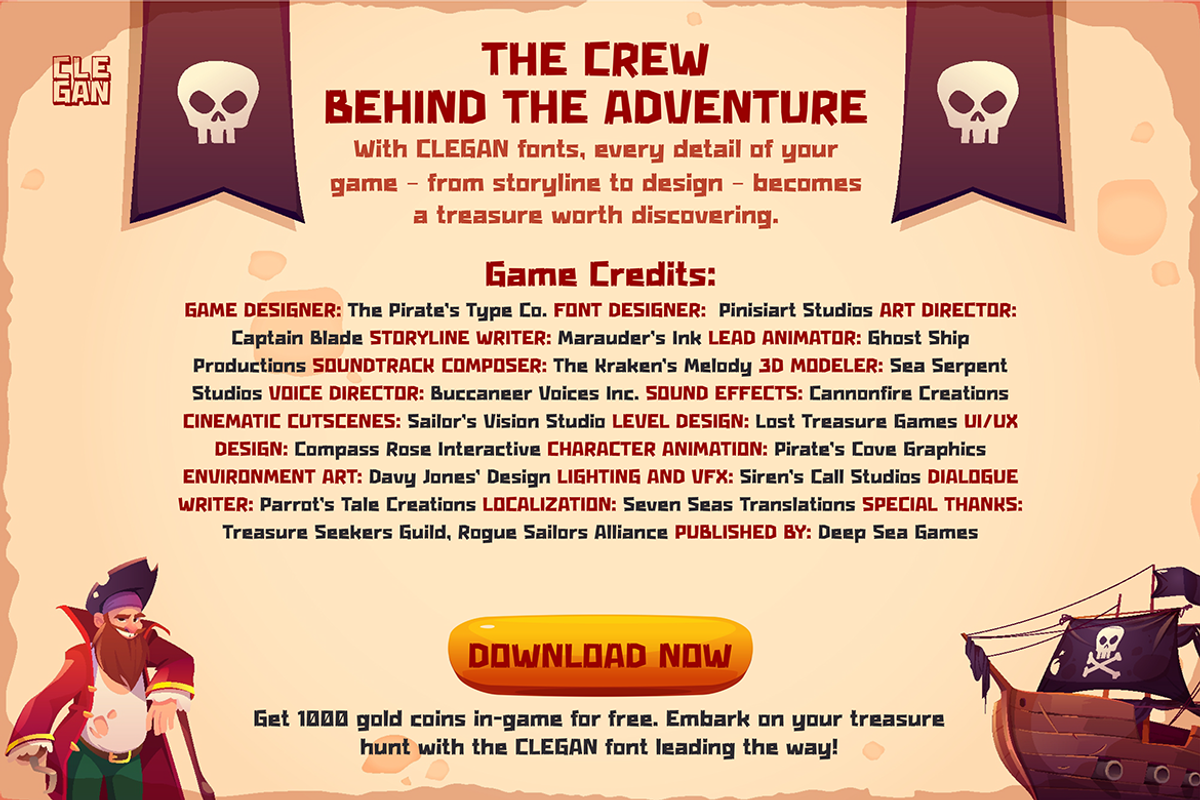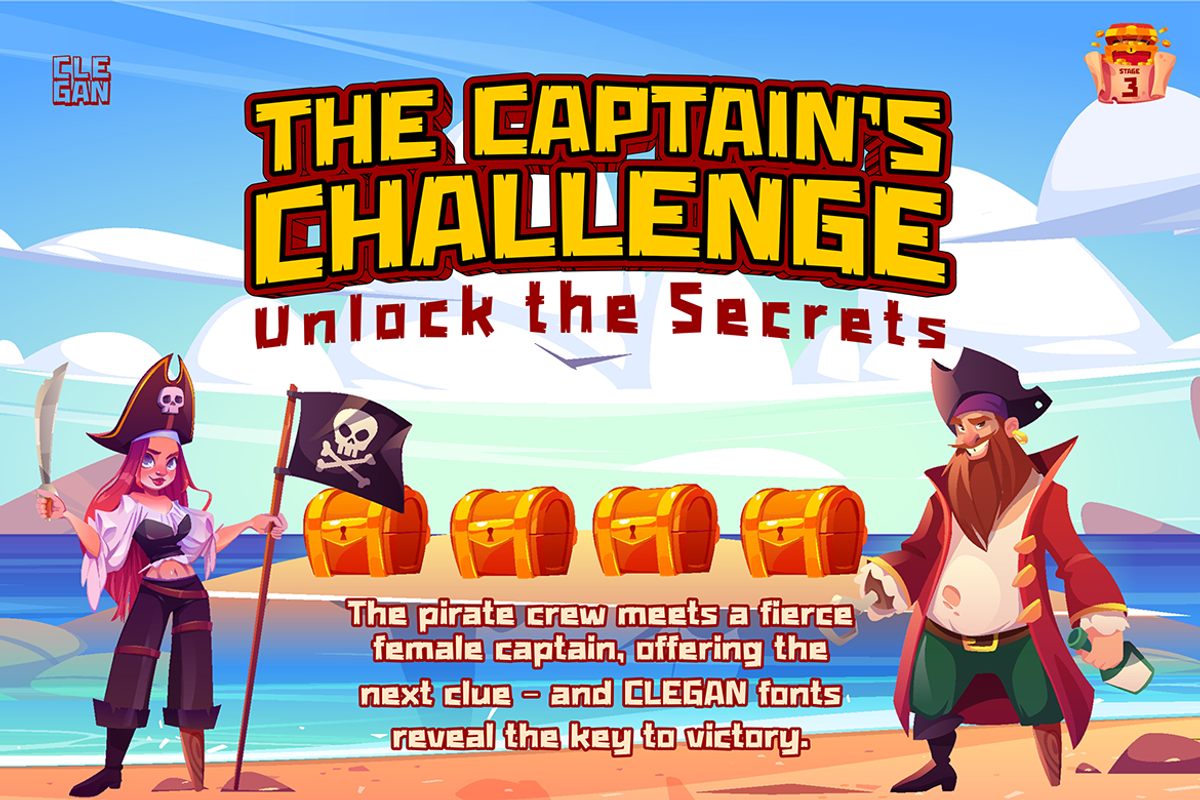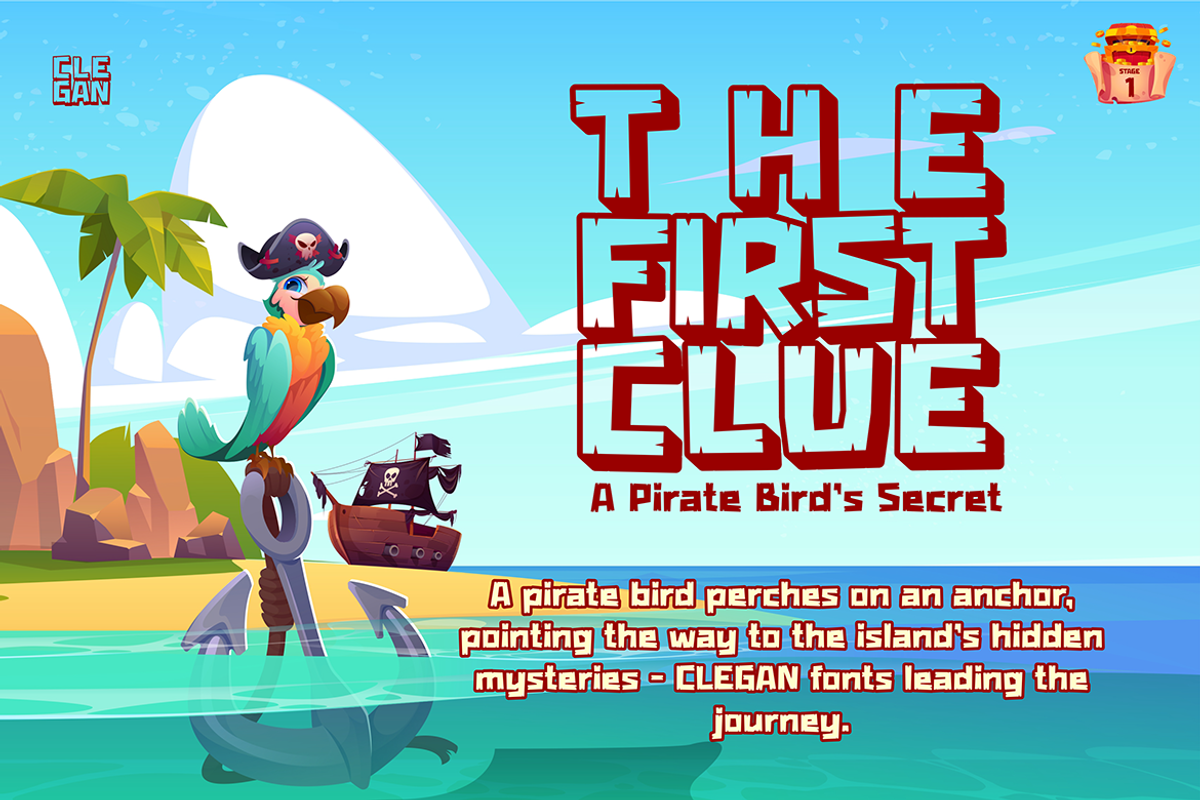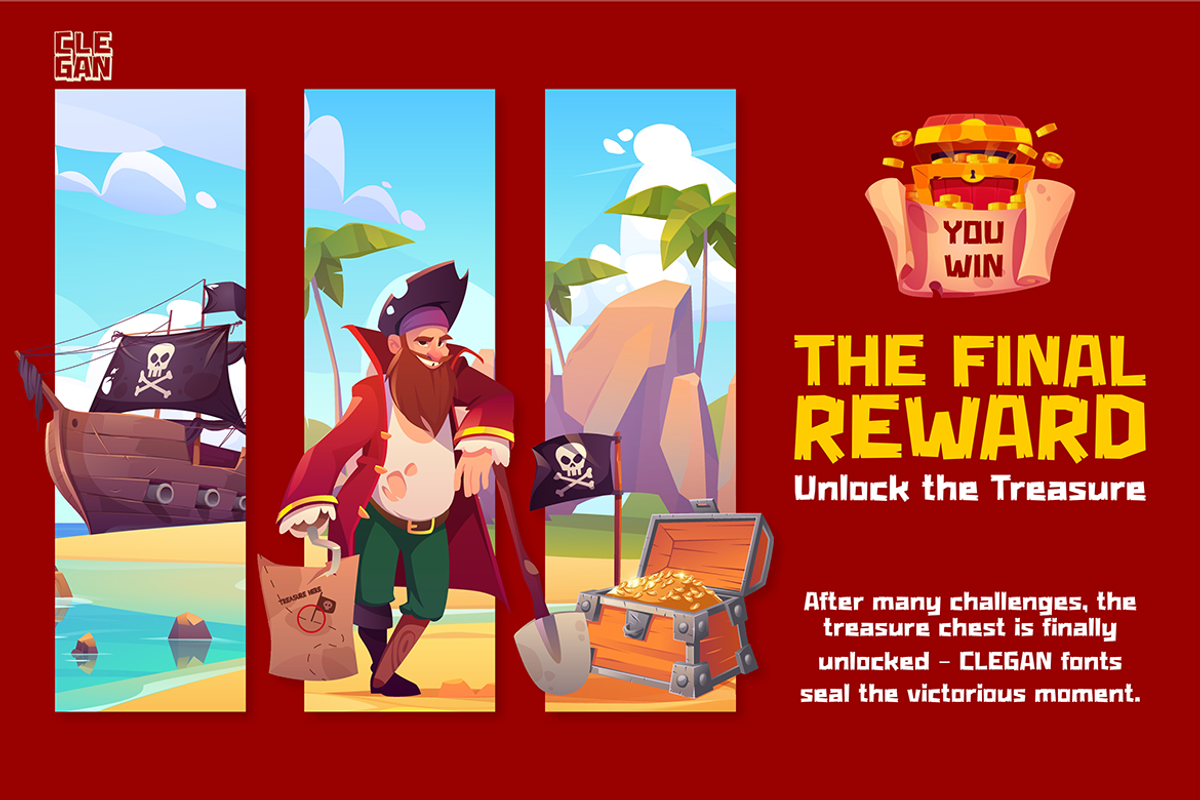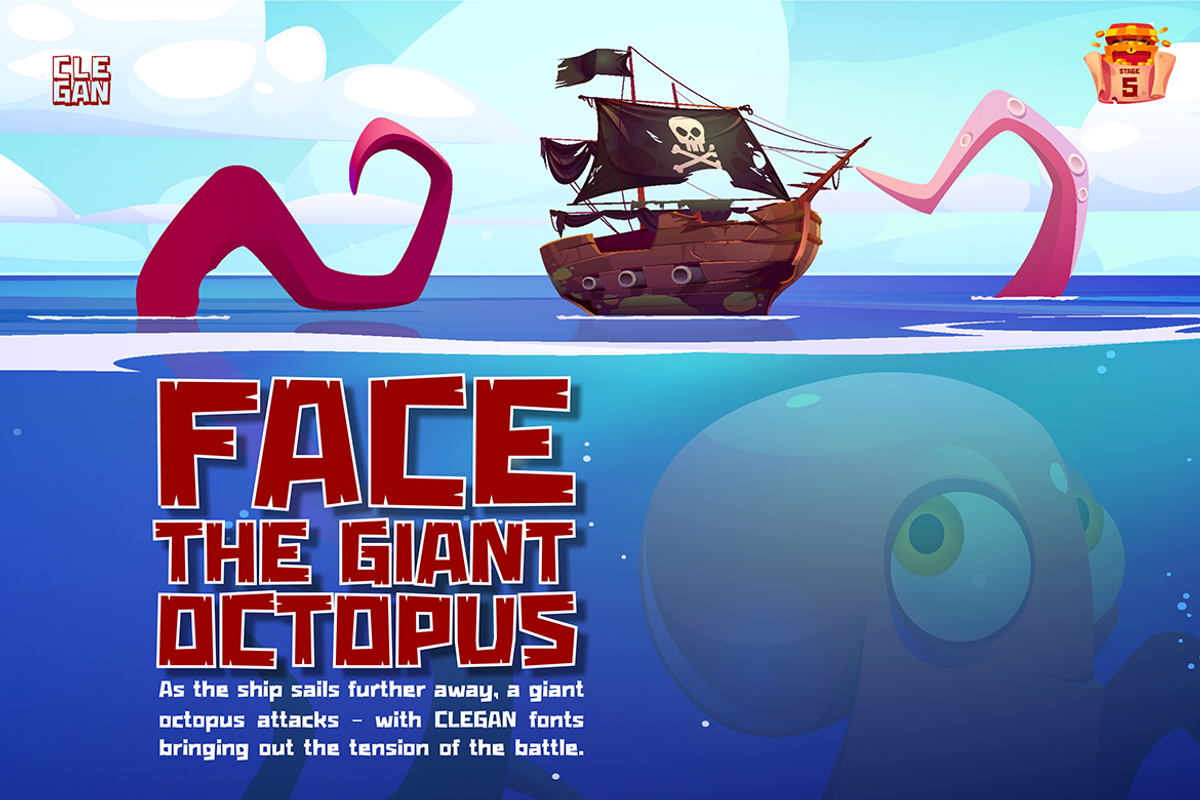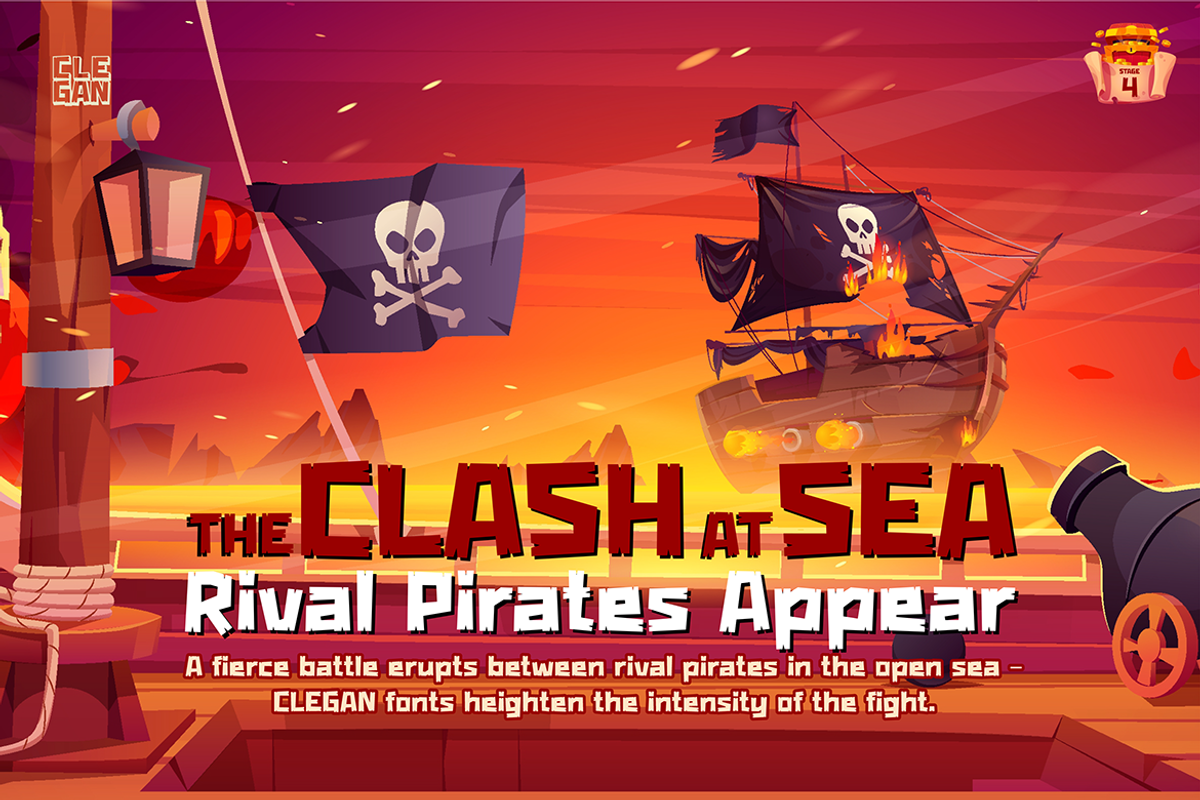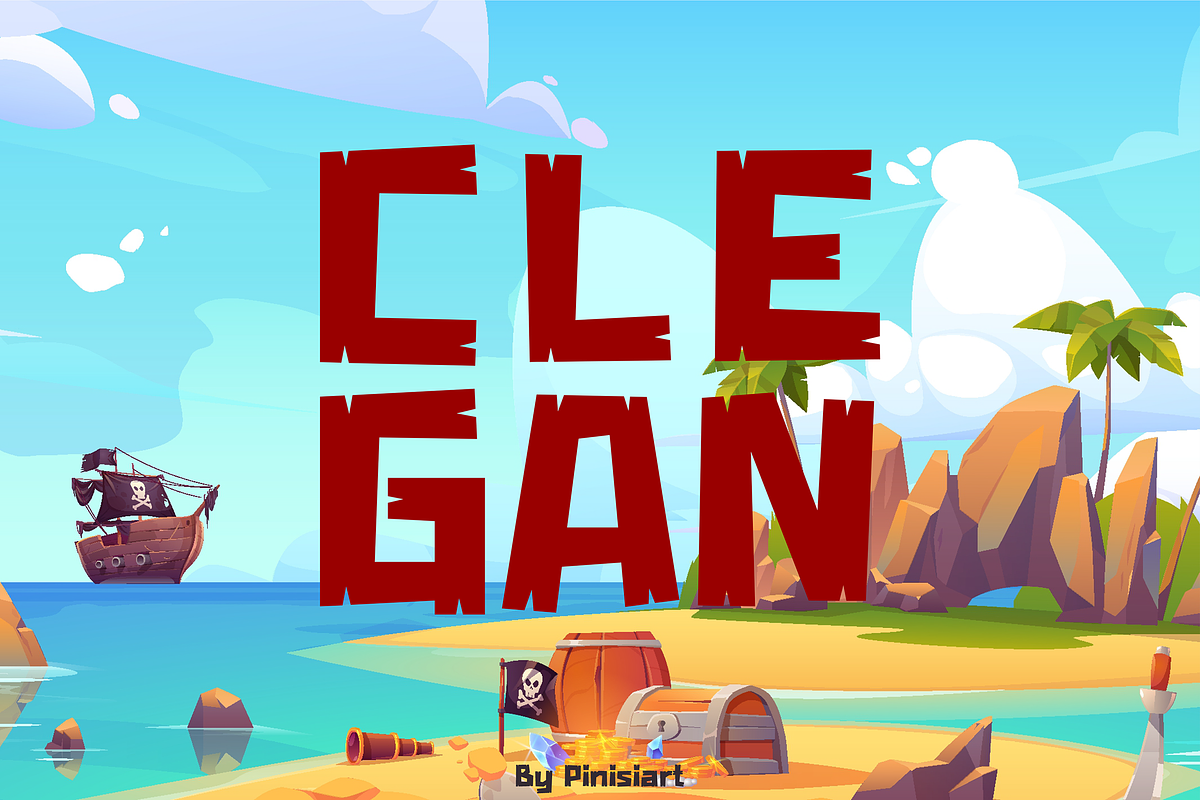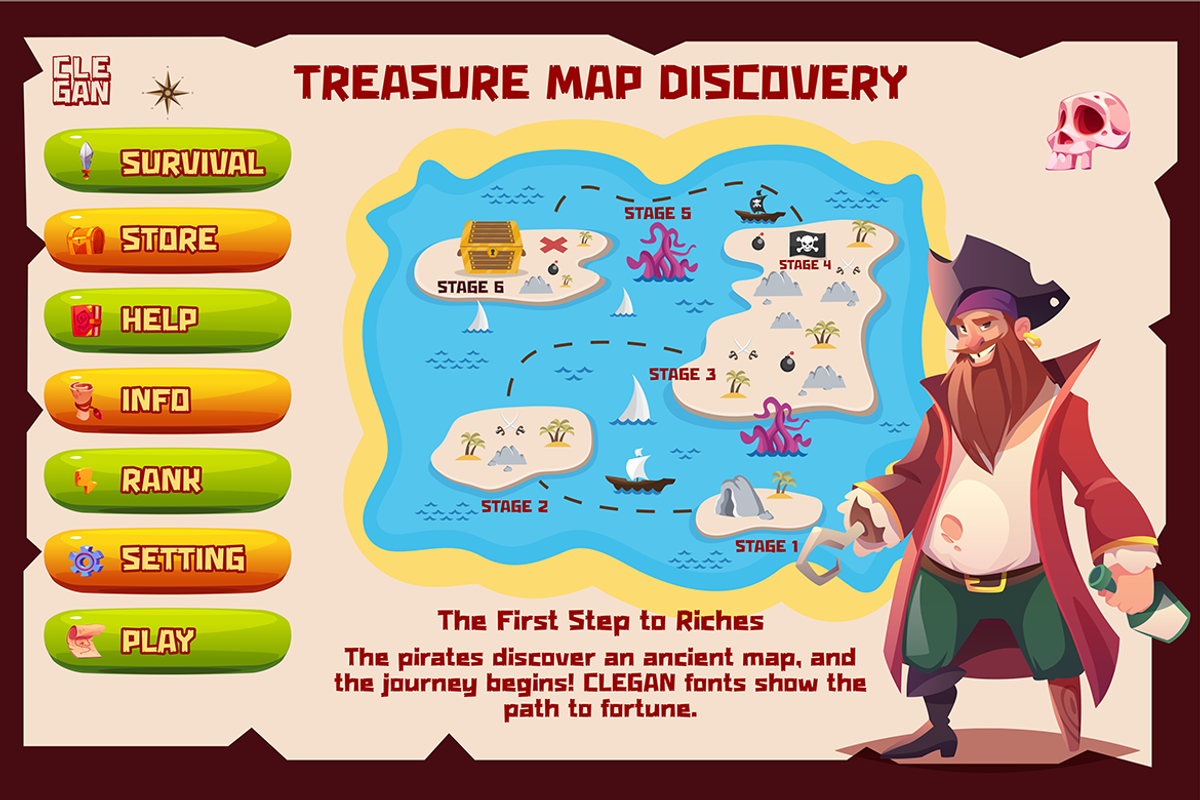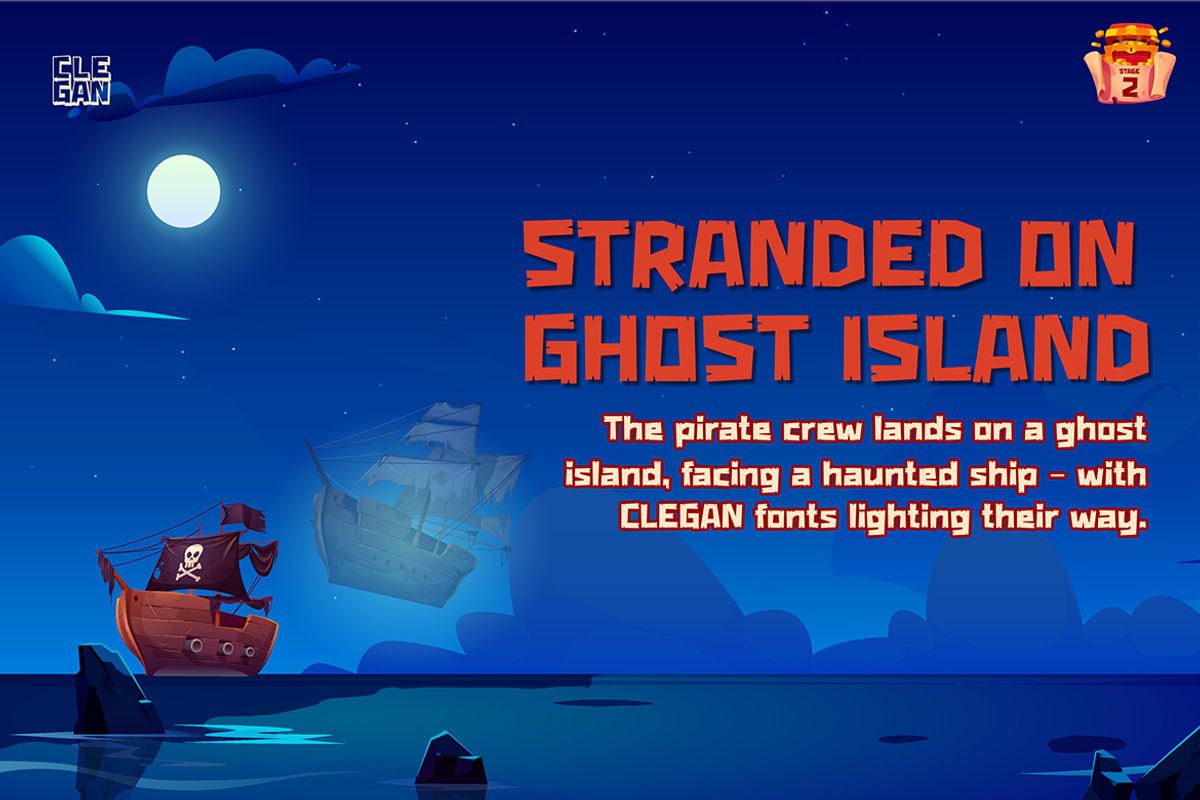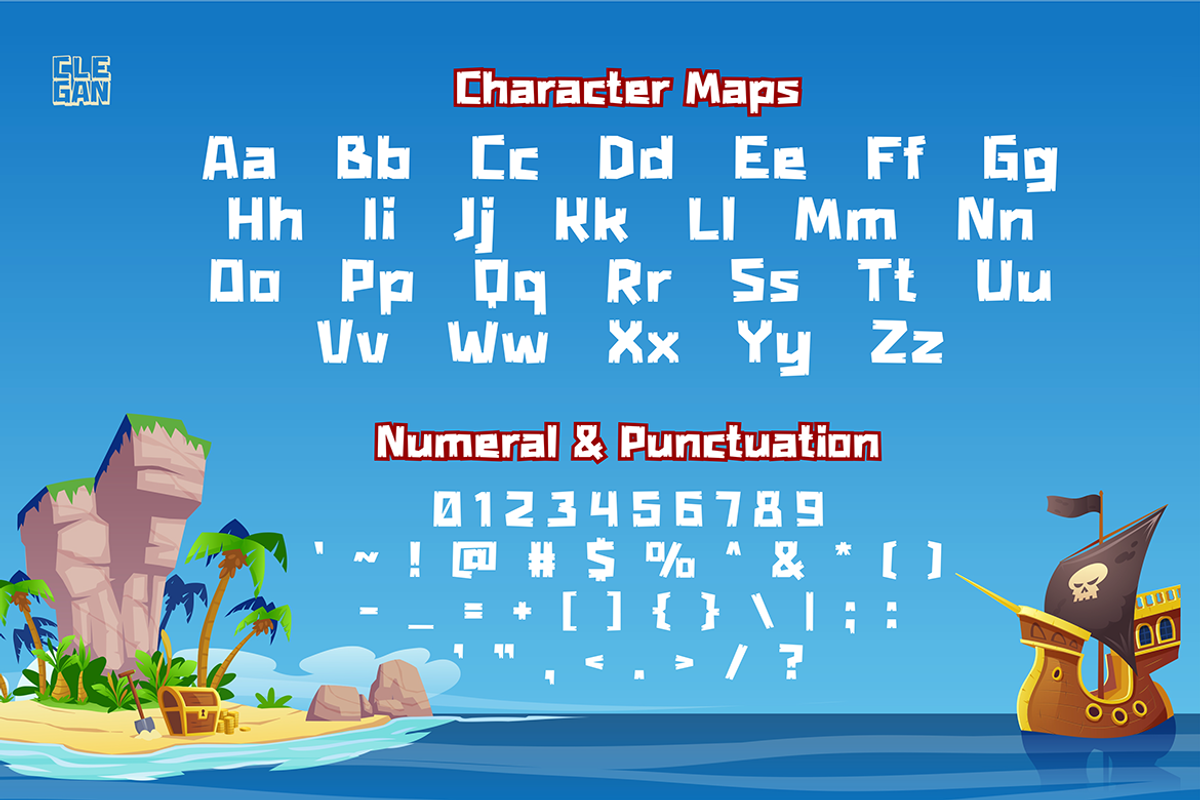
CLEGAN
Clegan - Dive Into a Playful Cartoon Sea Adventure!
Step into a world full of color and wonder with Clegan a font inspired by the playful world of animals and the deep blue sea!
Its fun, charming style is perfect for games, children's books, and other creative projects. Every letter brings the excitement of an underwater adventure, appealing to all ages—from kids to adults who love a touch of nostalgic cartoons.
Bring your projects to life with the vibrant and cheerful vibe of Clegan